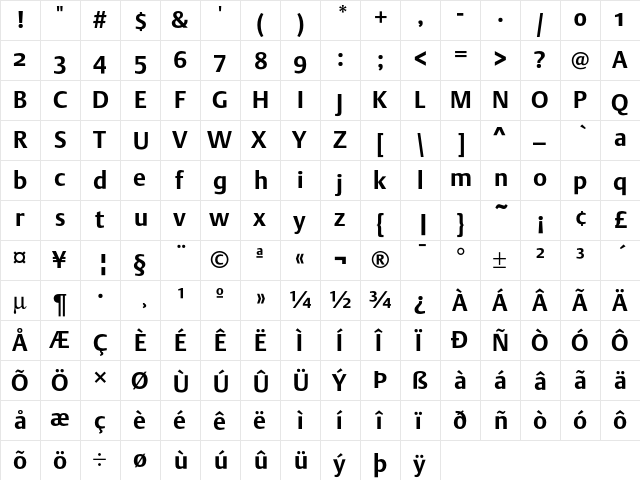
DTL Argo ST Bold
Design Context for DTL Argo Typeface
DTL Argo offers clean, dependable letterforms without strong stylistic allegiance, making it a practical choice for designers who need flexibility. The heavy weight commands attention and anchors typographic hierarchies.
Pro Tip: Pair DTL Argo with a font of contrasting weight or personality to build a more expressive typographic hierarchy.